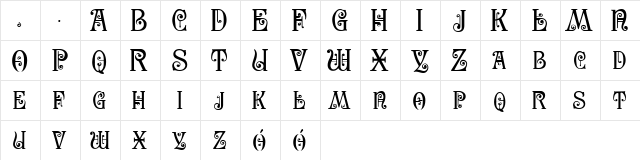
SecesjaPL Regular Font Preview
SecesjaPL Regular
SecesjaPL Regular Font Details
Design Context for SecesjaPL Typeface
SecesjaPL is a composed and adaptable typeface that performs quietly and consistently across a wide range of design contexts.